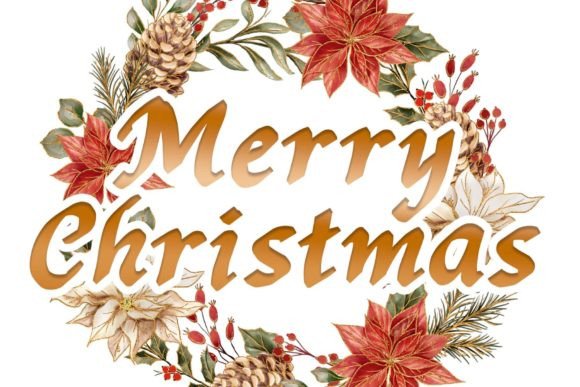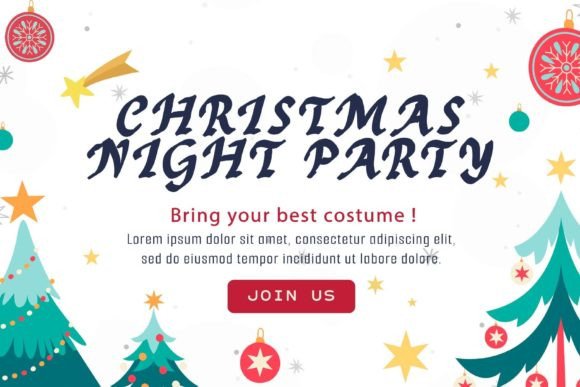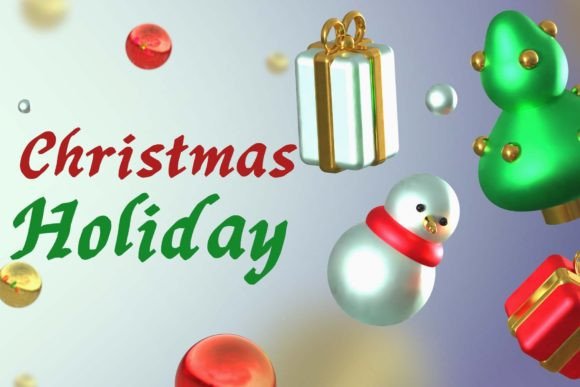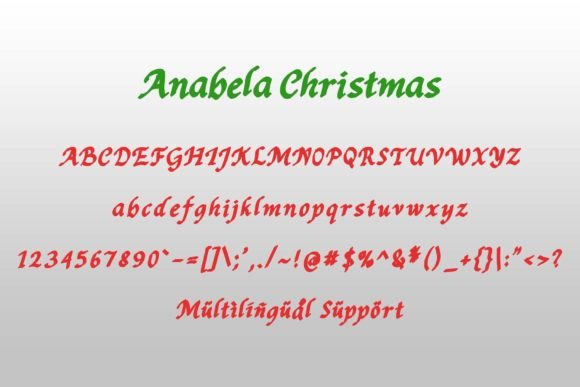
Introducing Anabela Christmas Font: Elevate Your Designs with Elegance
Are you looking for a font that exudes elegance and sophistication for your holiday designs, branding, or craft projects? Look no further than the Anabela Christmas Font. This beautiful, handwritten font is perfect for creating stunning Christmas invitations, wedding stationery, logos, film titles, book titles, posters, banners, stickers, and more.
What Makes Anabela Christmas Font Special?
The Anabela Christmas Font is a versatile and stylish font that is equipped with a wide range of characters, including uppercase and lowercase letters, numerals, punctuation, and multilingual support. This means you can use it to create designs in various languages, making it an excellent choice for global brands or designers who work with international clients.
Key Features of Anabela Christmas Font
- Elegant Handwritten Style: The Anabela Christmas Font boasts a beautiful, elegant handwritten style that adds a touch of sophistication to any design.
- Comprehensive Character Set: The font includes uppercase and lowercase letters, numerals, punctuation, and multilingual support, giving you the flexibility to create a wide range of designs.
- Multilingual Support: With multilingual support, you can create designs in various languages, making it perfect for global brands or designers who work with international clients.
- Versatile: The Anabela Christmas Font is suitable for various design applications, including business branding, Christmas invitations, weddings, Halloween, logos, film titles, book titles, posters, banners, stickers, and more.
Whether you’re a designer or crafter, the Anabela Christmas Font is an excellent addition to your toolkit. Designers can use it to create stunning branding, advertising materials, and websites, while crafters can use it to create beautiful handmade cards, invitations, and decorations.
Use Cases for Anabela Christmas Font
The Anabela Christmas Font is perfect for a wide range of design projects, including:
- Christmas Invitations: Create beautiful and elegant Christmas invitations that will impress your friends and family.
- Wedding Stationery: Use the Anabela Christmas Font to create stunning wedding stationery, including invitations, save-the-date cards, and thank-you notes.
- Logos and Branding: The font’s elegant style makes it perfect for creating sophisticated logos and branding materials for businesses.
- Film and Book Titles: Use the Anabela Christmas Font to create eye-catching film and book titles that will stand out from the crowd.
- Posters and Banners: Create stunning posters and banners for events, promotions, or advertising campaigns.
- Stickers and Decals: Use the font to create fun and colorful stickers and decals for laptops, water bottles, or any other surface.
Tips for Using Anabela Christmas Font
To get the most out of the Anabela Christmas Font, here are some tips:
- Pair it with Other Fonts: Experiment with pairing the Anabela Christmas Font with other fonts to create a unique and interesting design.
- Use it in Combination with Images: Use the font in combination with images or illustrations to create a visually appealing design.
- Experiment with Colors: Don’t be afraid to experiment with different colors and textures to add depth and interest to your design.
The Anabela Christmas Font is a beautiful and elegant font that is perfect for designers and crafters looking to add a touch of sophistication to their designs. With its comprehensive character set, multilingual support, and versatility, it’s an excellent addition to any design toolkit. Whether you’re creating Christmas invitations, wedding stationery, logos, or posters, the Anabela Christmas Font is sure to impress.